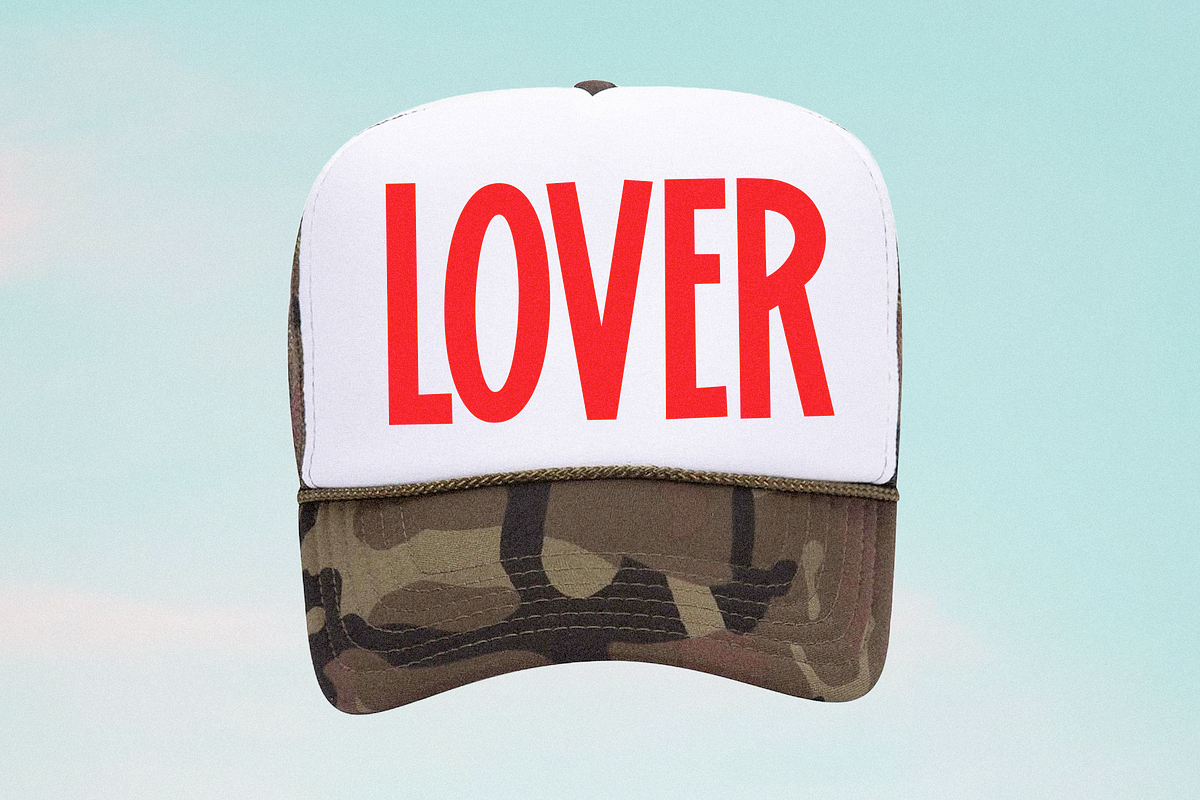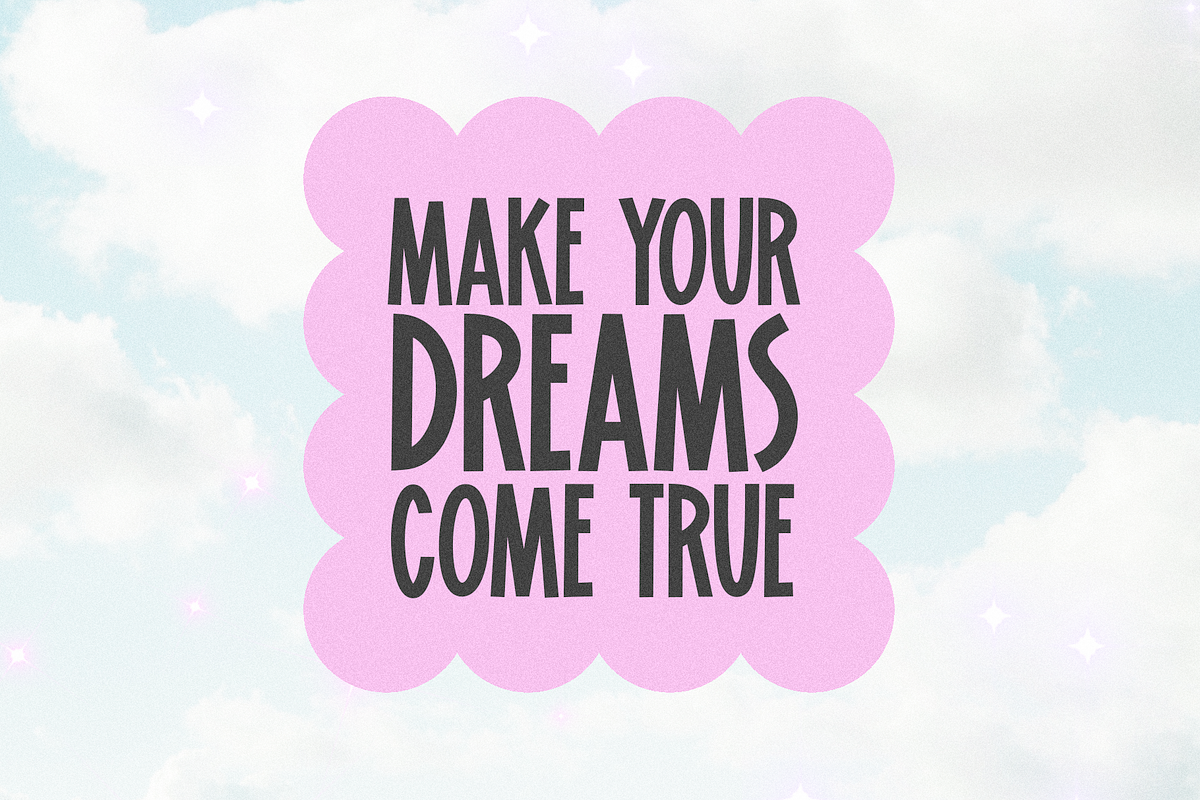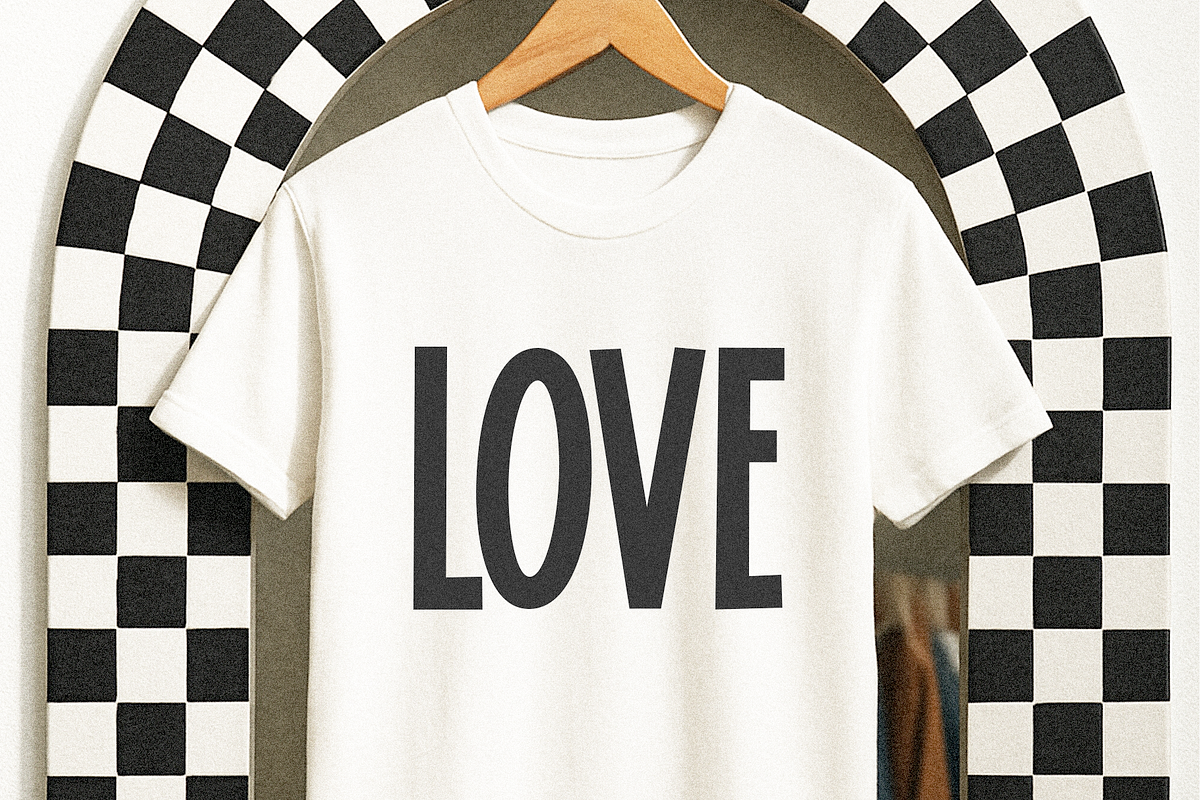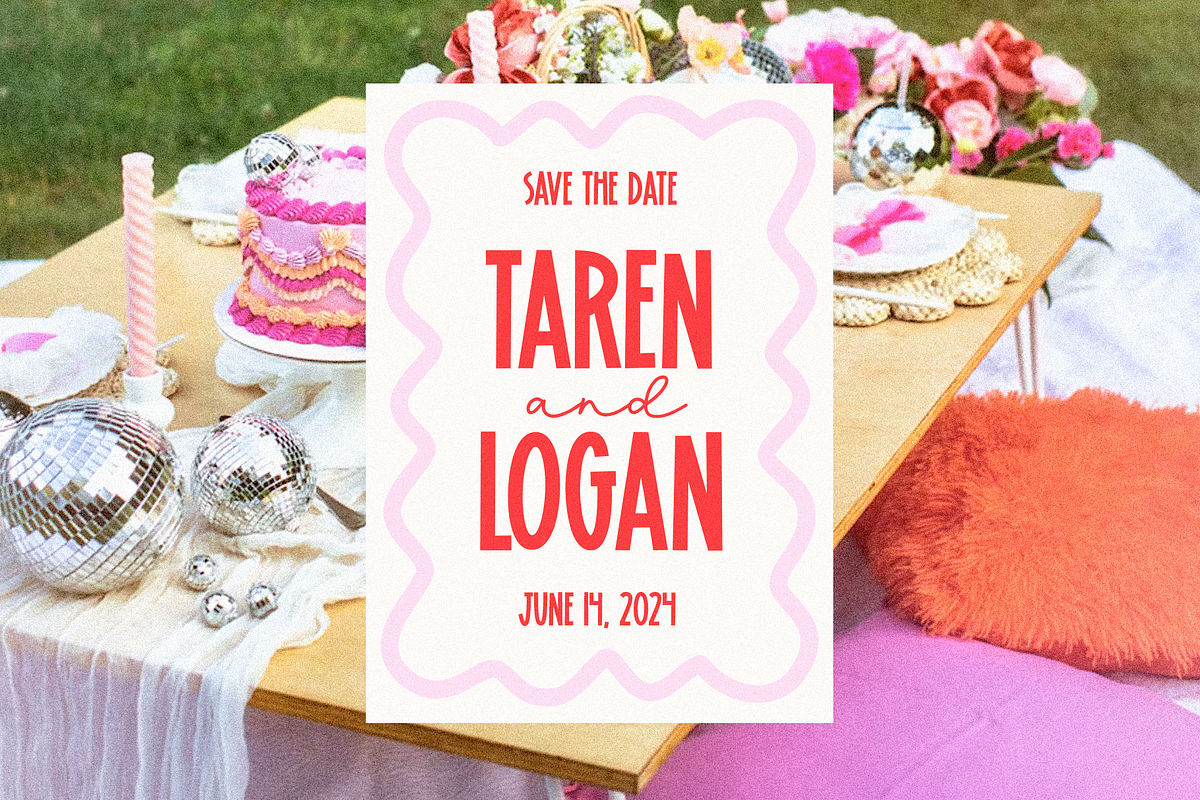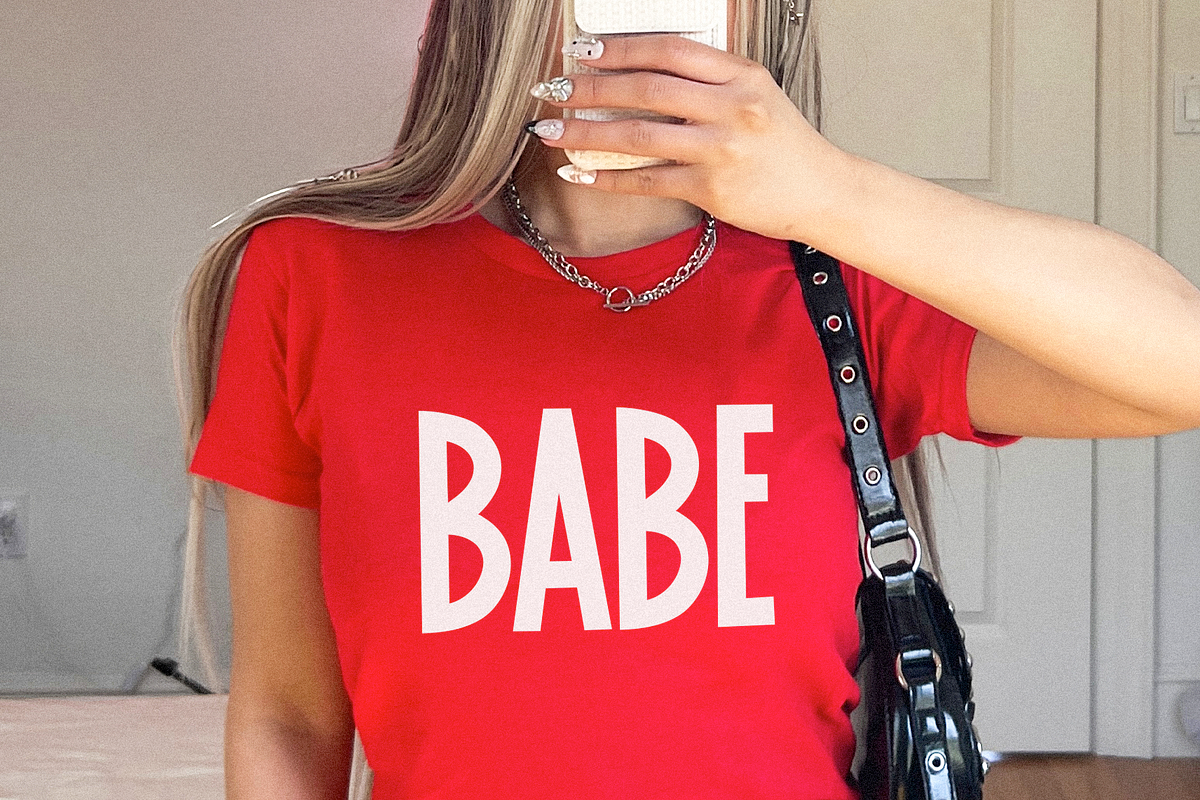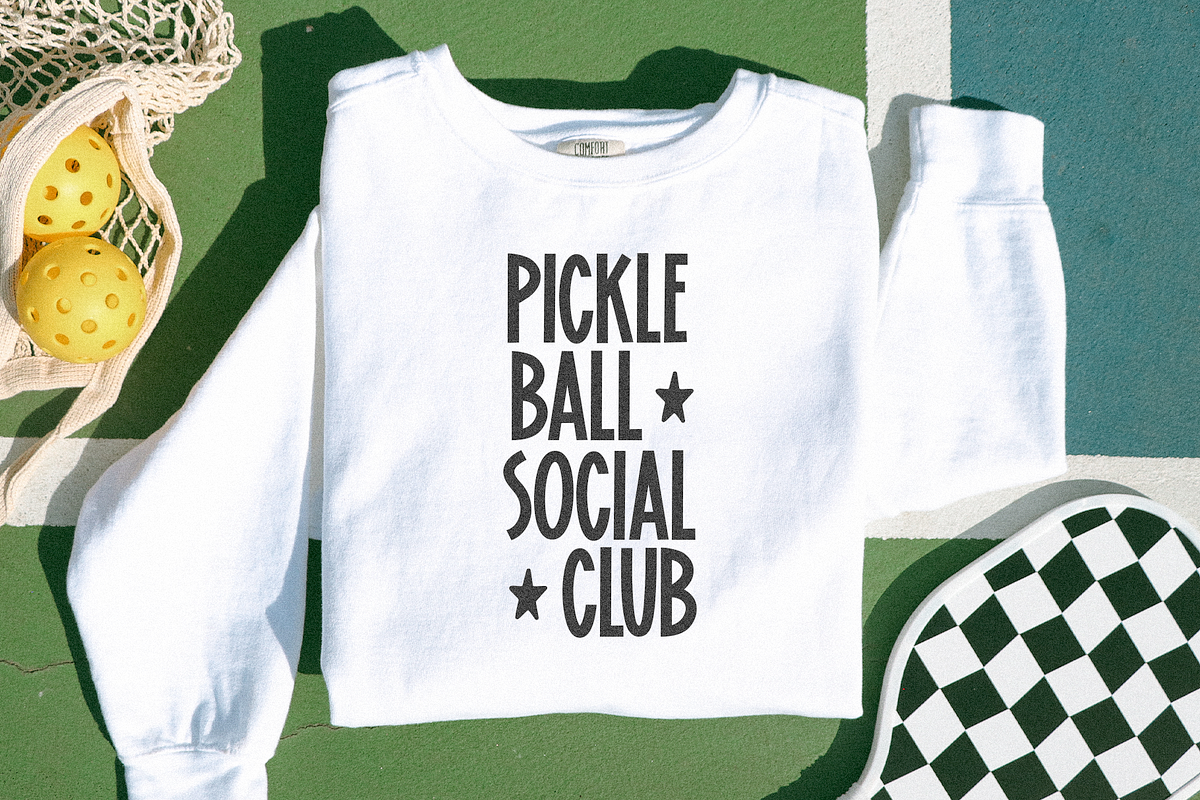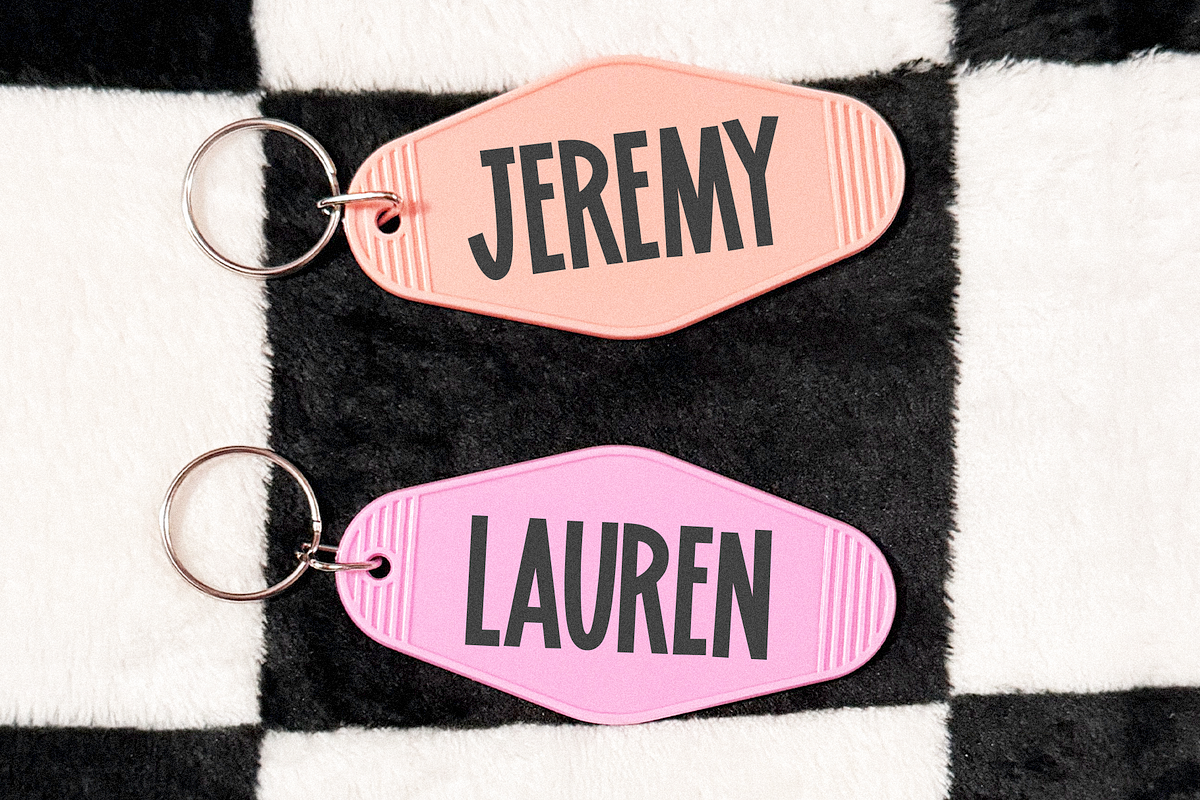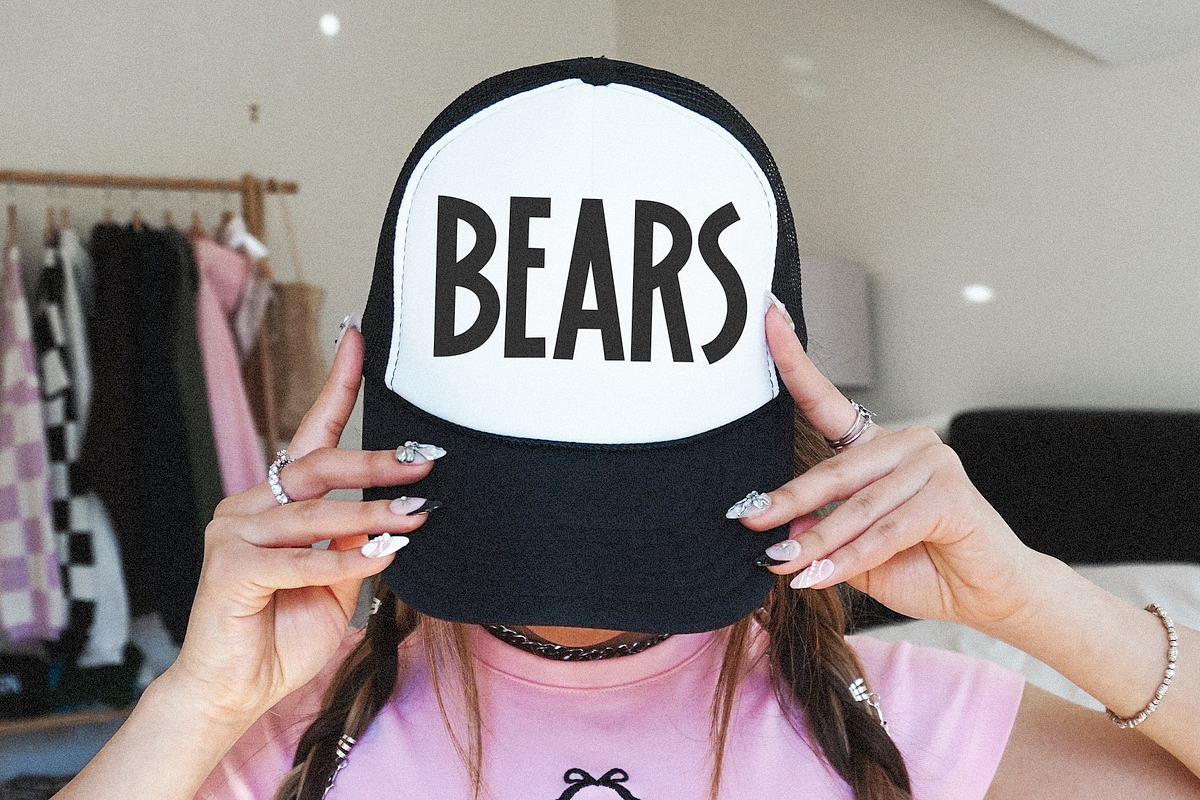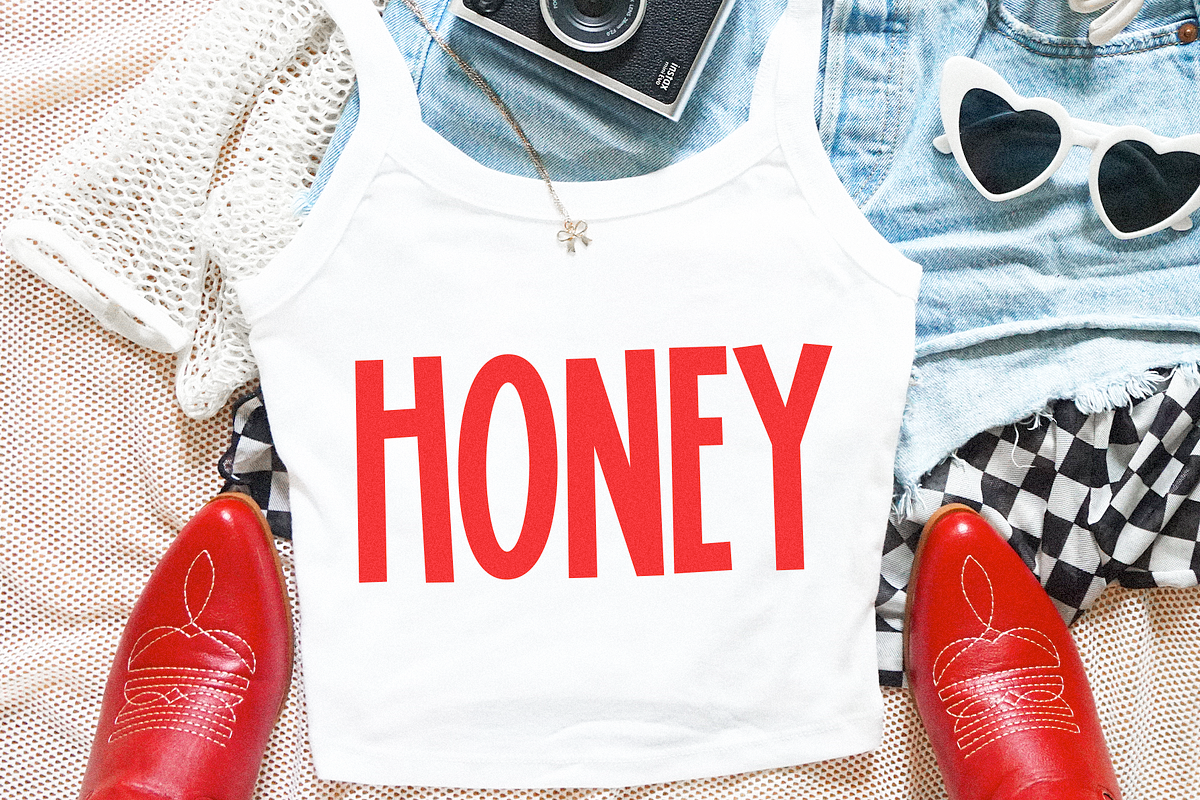
Bryleigh | Tall Handwritten Font
Bryleigh is a tall sans font.
This font is perfect for cricut projects, logos, shirts, svg files, planners, stickers, quotes, social media and more!